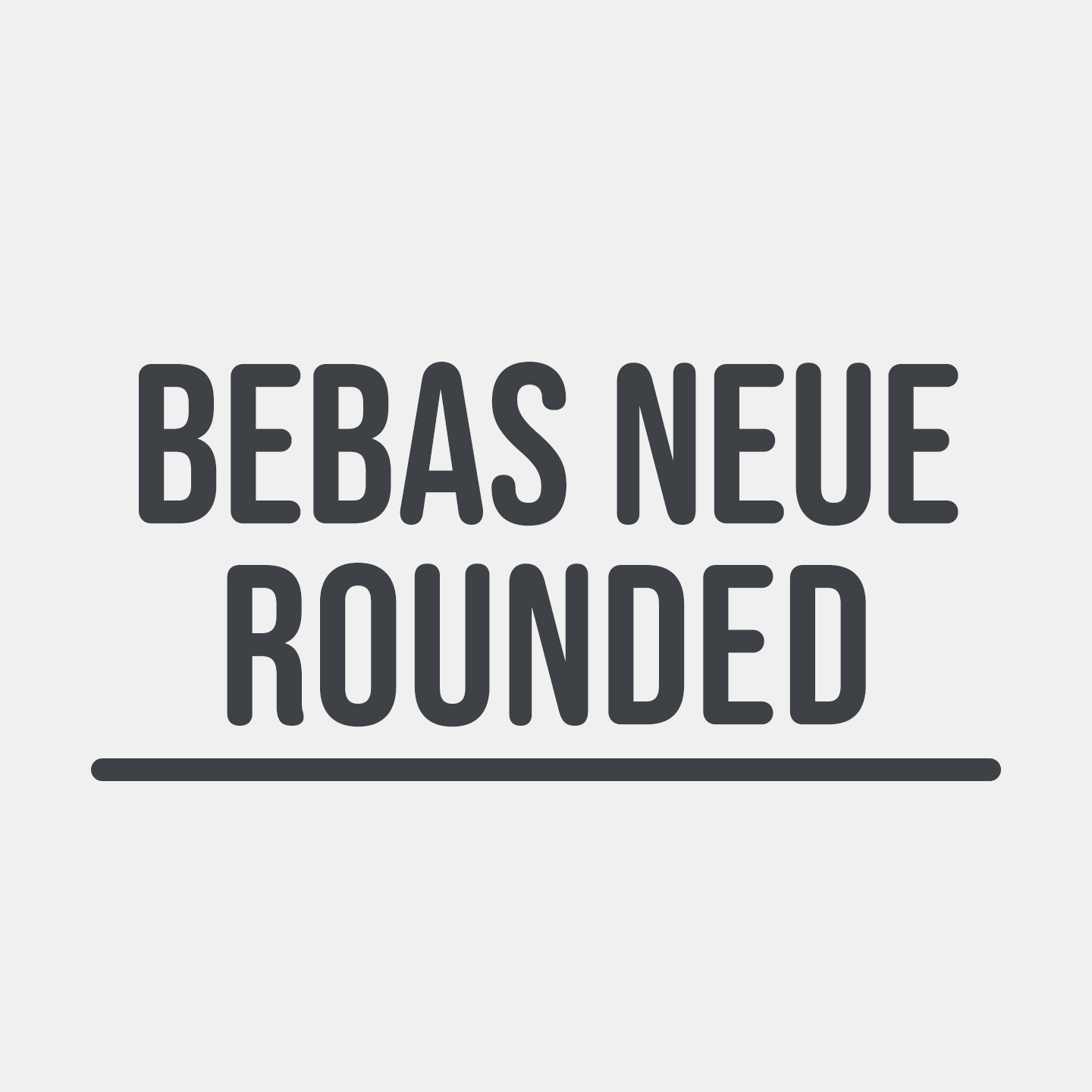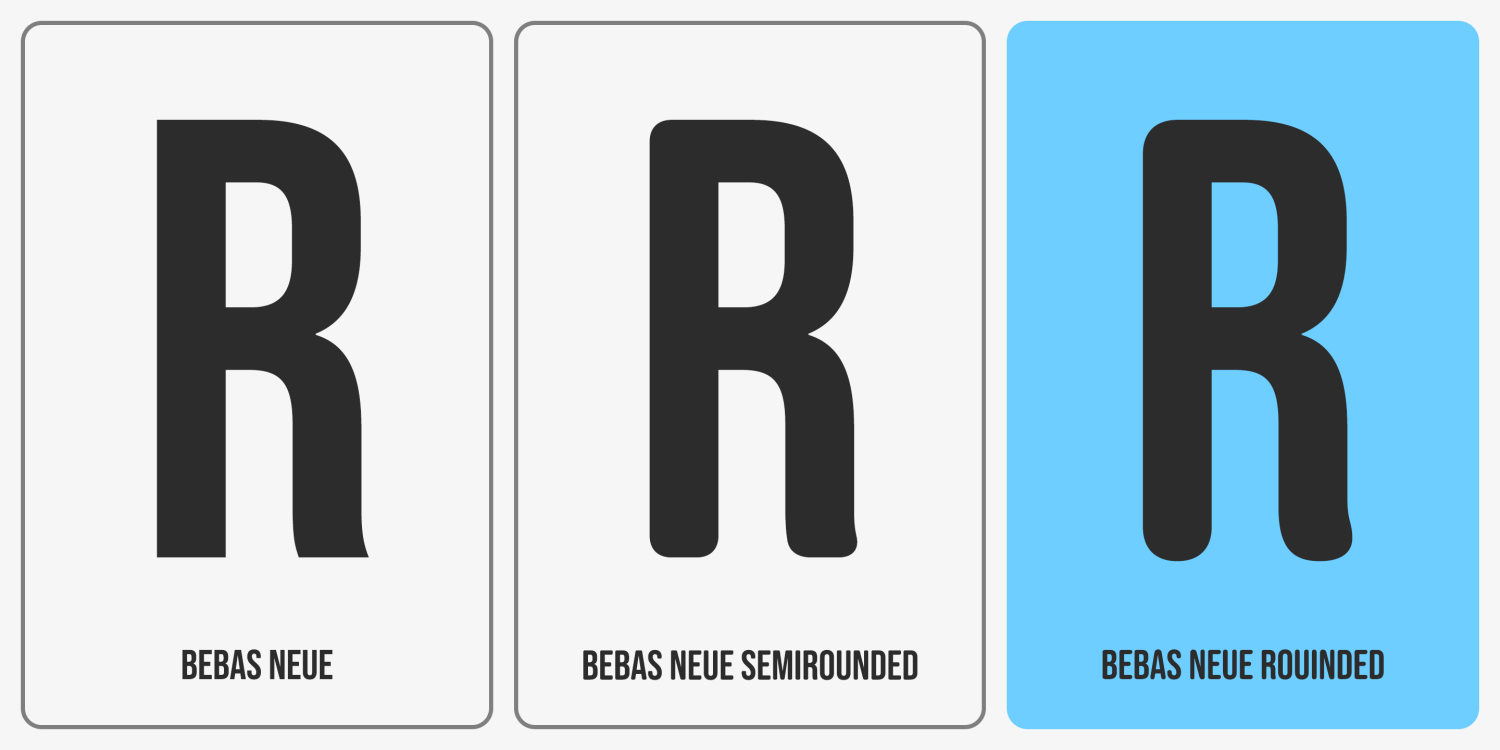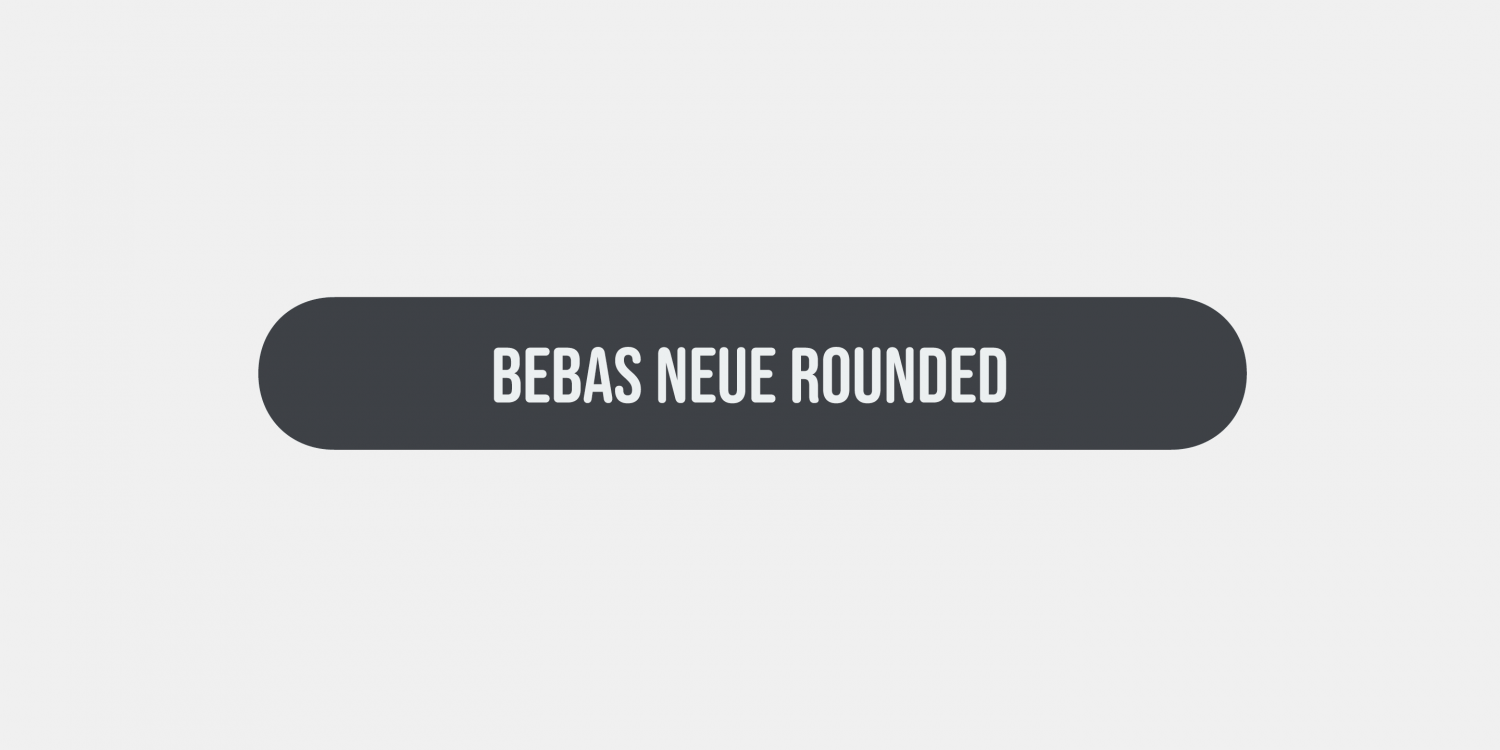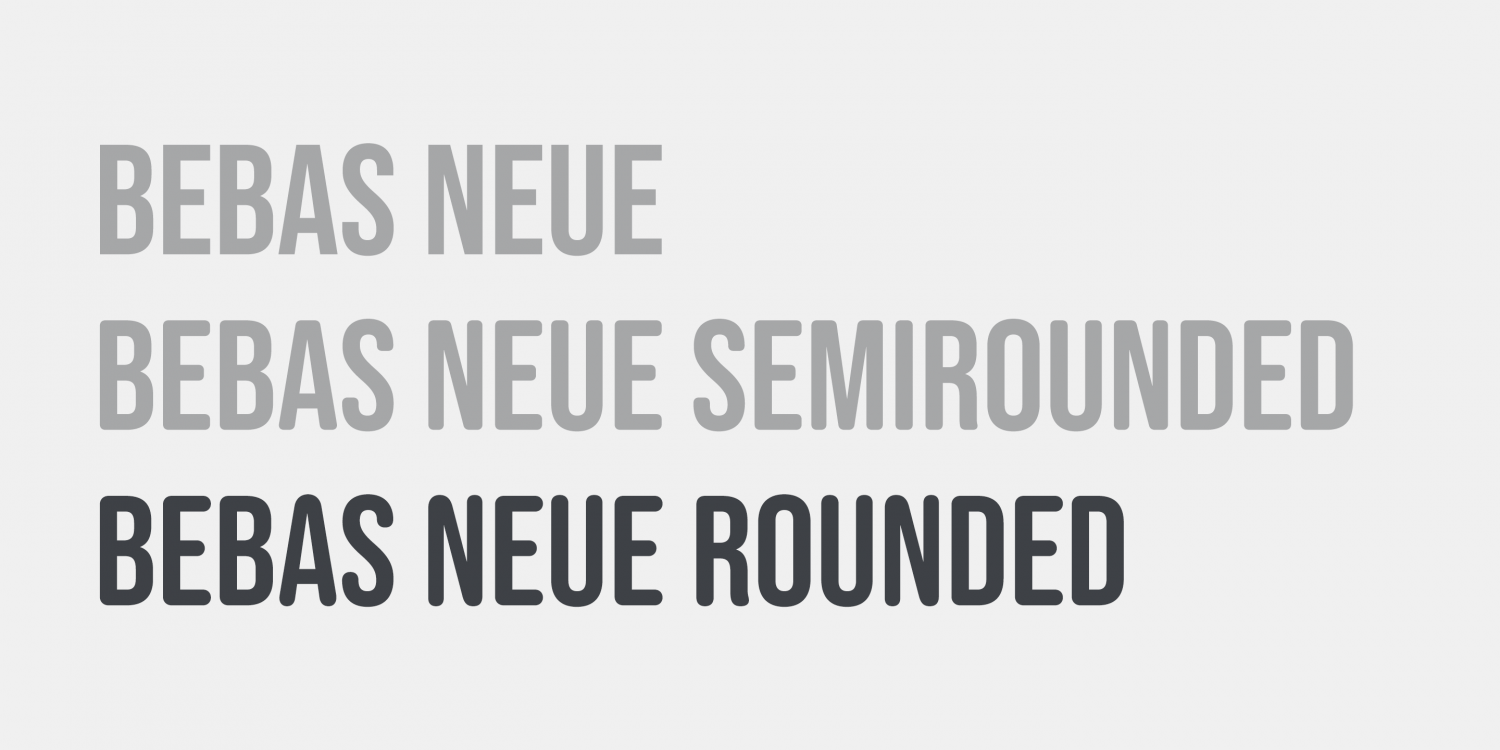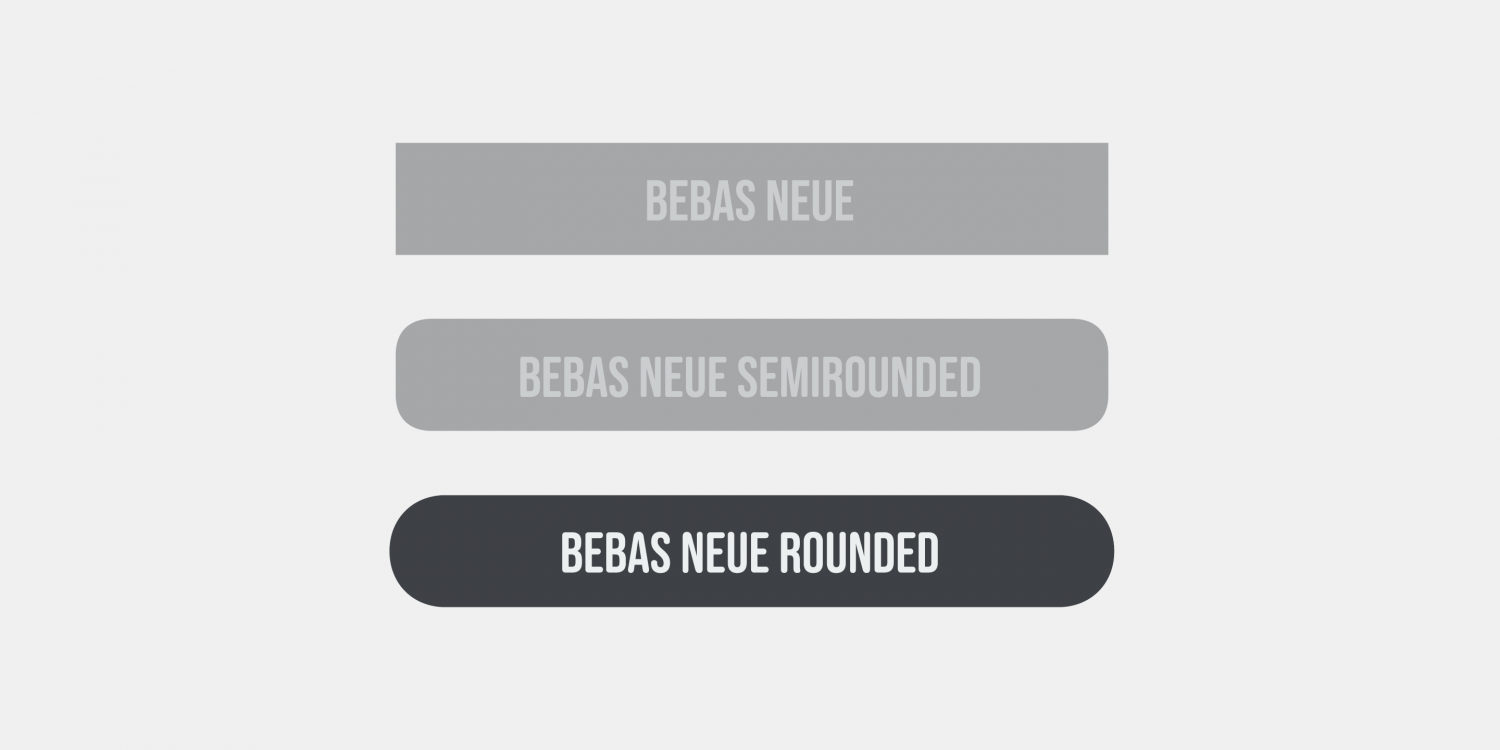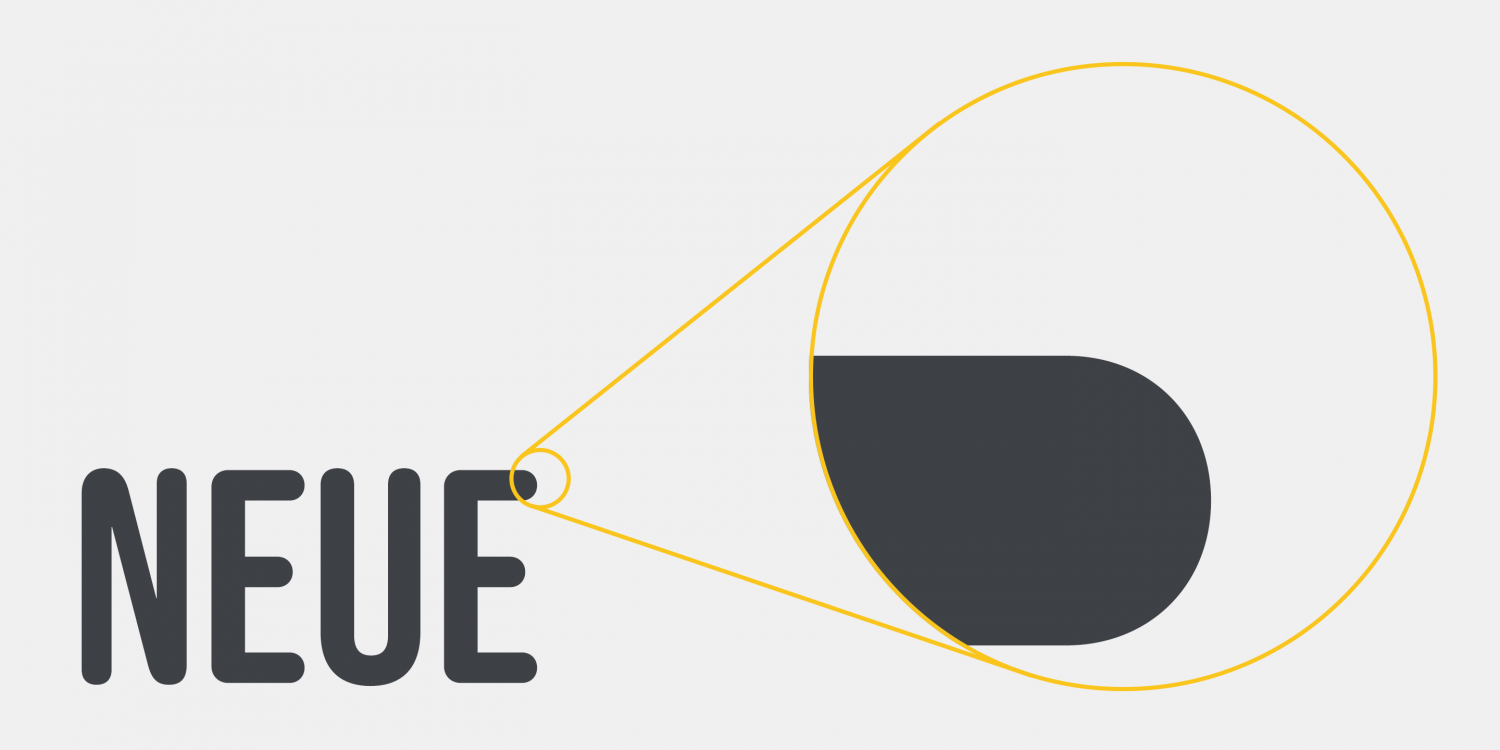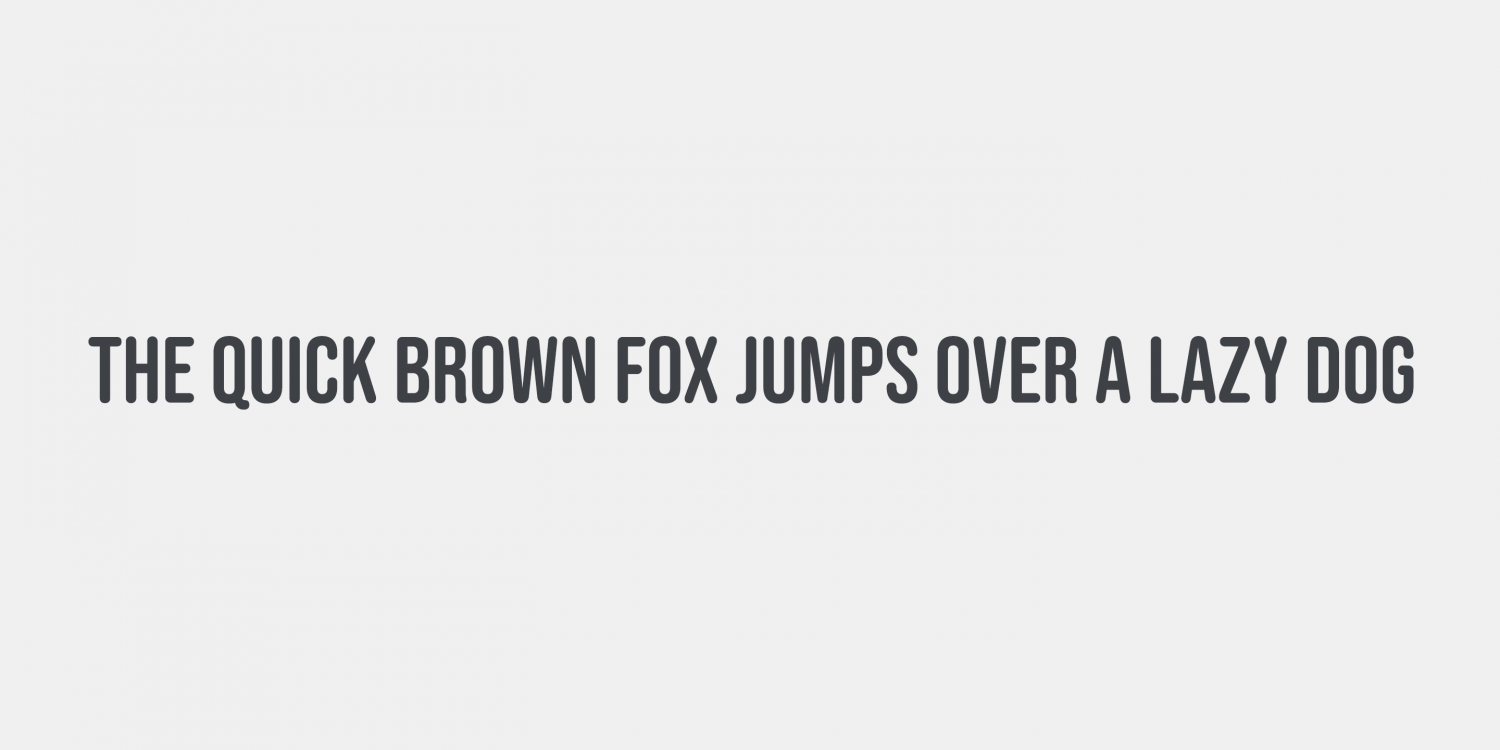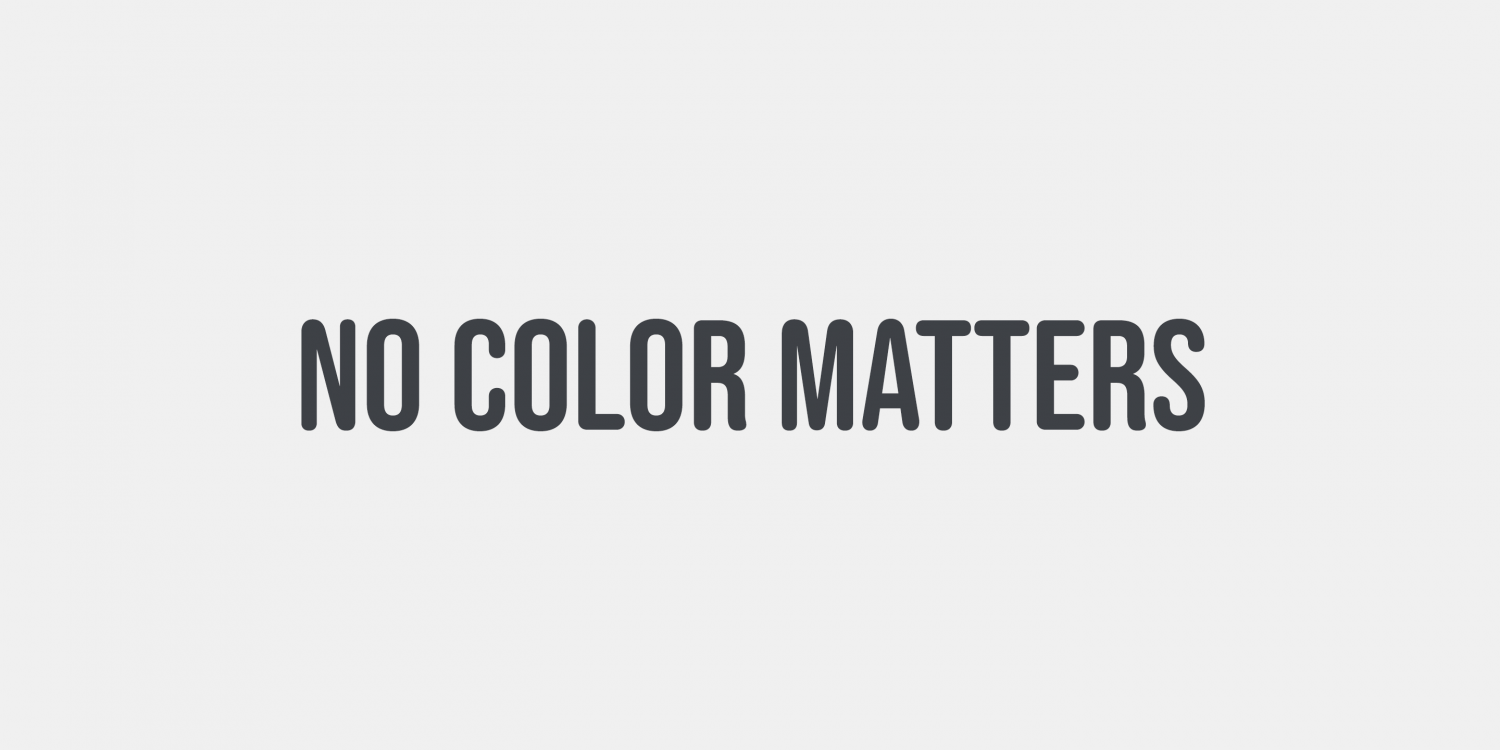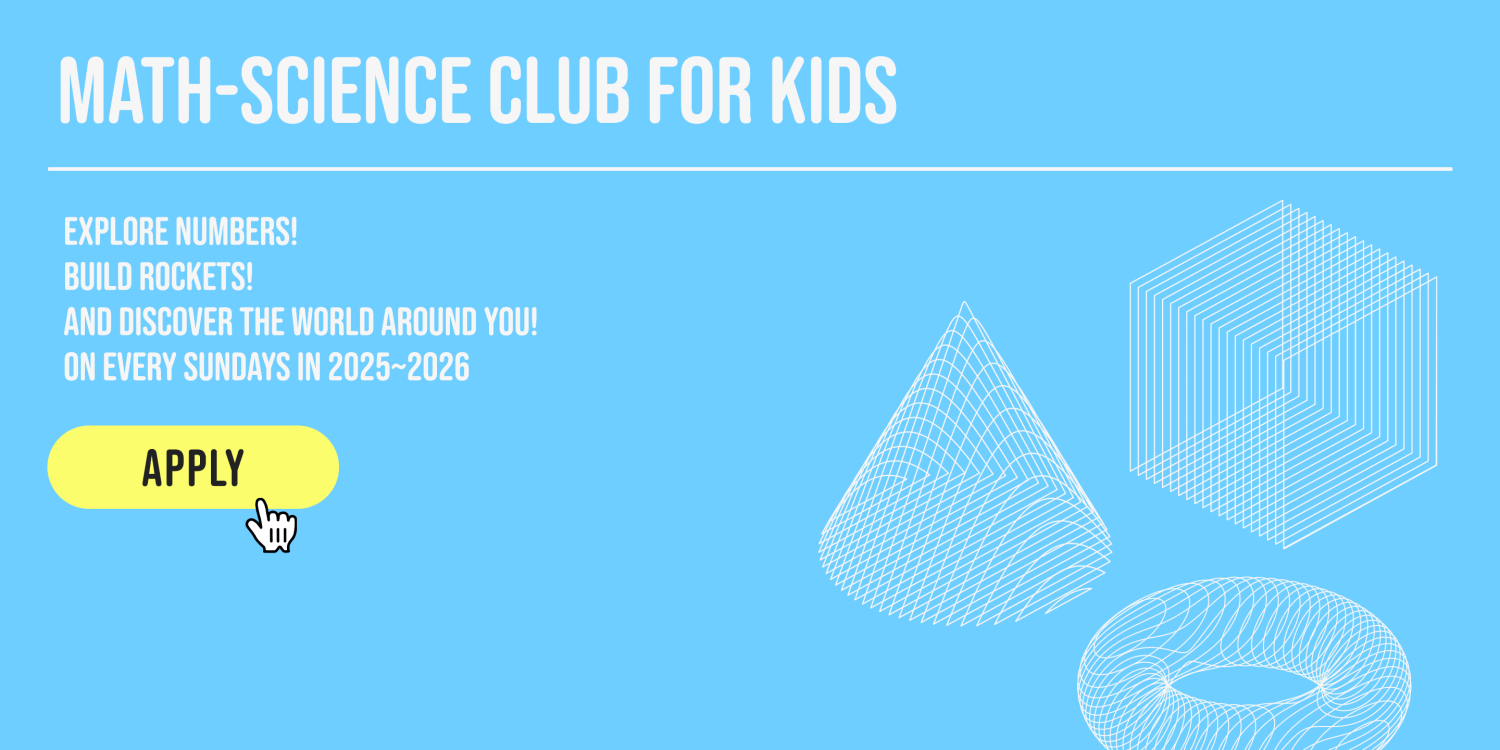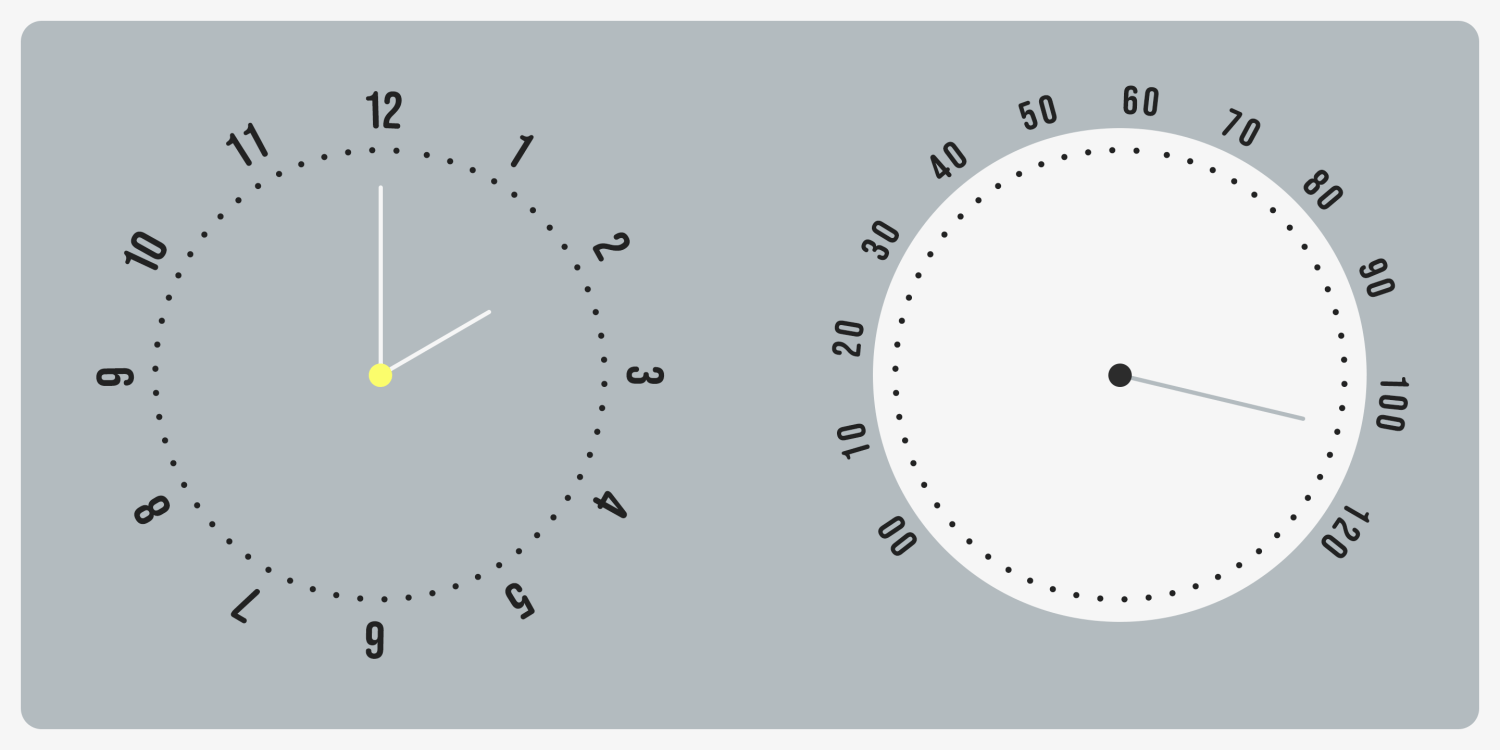
Bebas Neue Rounded
Bebas Neue Rounded is a softened reinterpretation of the iconic Bebas Neue, featuring rounded corners and terminals for a more warm, natural, and friendly appearance.
While it shares the same core structure and proportions as the original, this version introduces a gentler tone, making it suitable for a wider variety of design contexts.
Offering a softer impression than Bebas Neue SemiRounded, it’s perfect for projects that call for approachability and subtle warmth, such as branding, packaging, or display use.